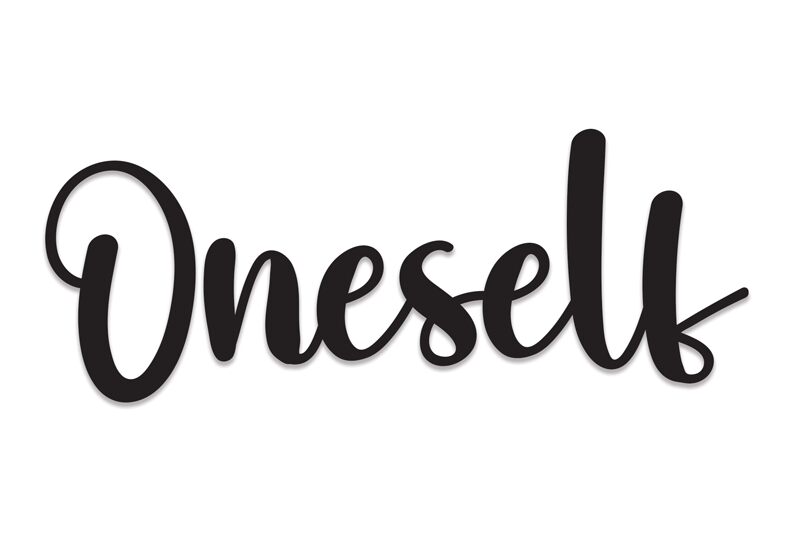
Oneself
Oneself, a captivating handwritten font by Scratchones, exudes a unique blend of elegance and playfulness. With its semi-bold weight, this font lends itself effortlessly to diverse projects.
Its organic strokes and flowing curves make it ideal for wedding invitations, bringing a touch of whimsy to save-the-dates or adding an intimate feel to place cards. Oneself also shines in branding projects, injecting personality into logos or packaging designs.
Whether used for blog headers or social media posts, this enchanting font adds a personal touch that captures attention and leaves a lasting impression.
The latest style letters are perfect for wall displays, wedding invitations, social media post logos, advertisements, product packaging, product designs, labels, photography, watermarks, invitations, stationery, and any project that requires taste handwriting.